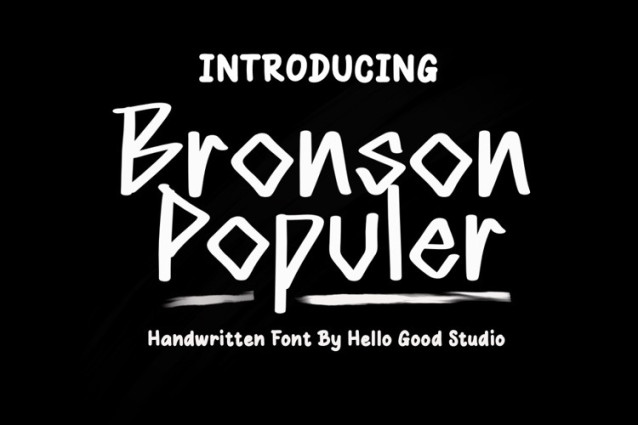
Bronson Populer Font
Bronson Populer Font, it would be a perfect choice to design posters, affiches, logos, t-shirt and magazine prints, eye-pleasing typographic designs and more.